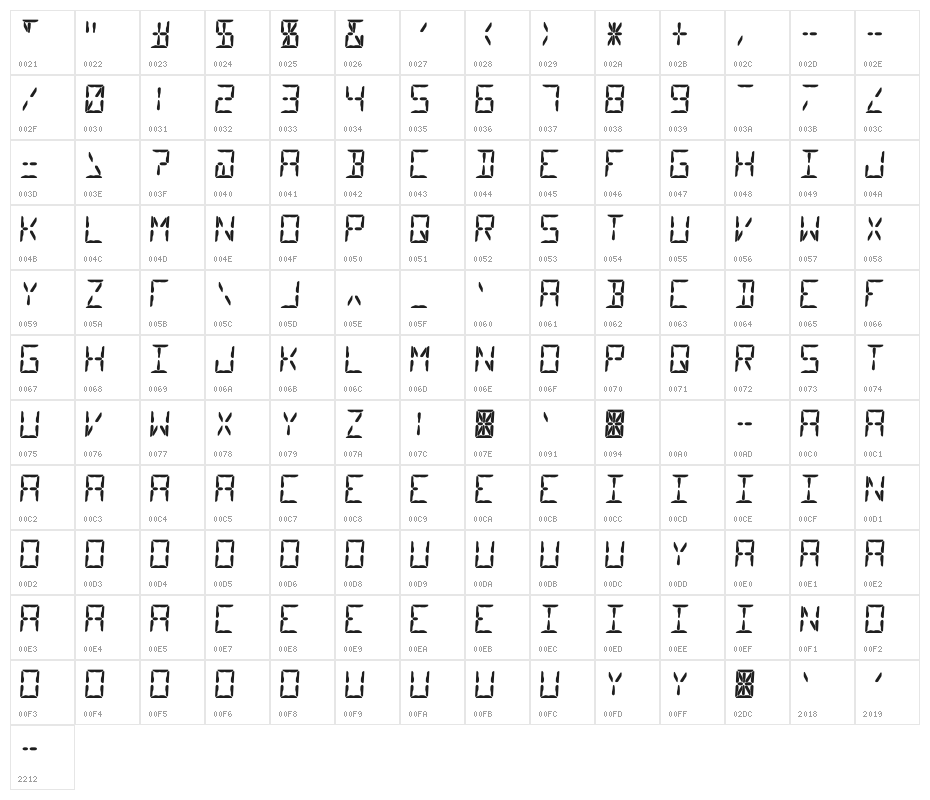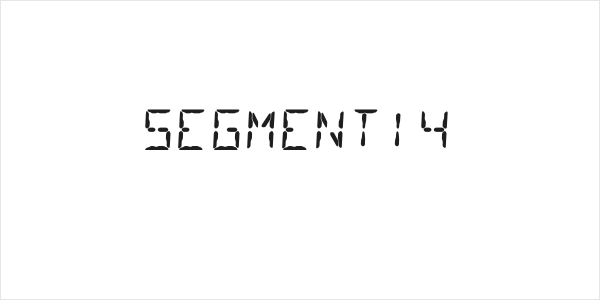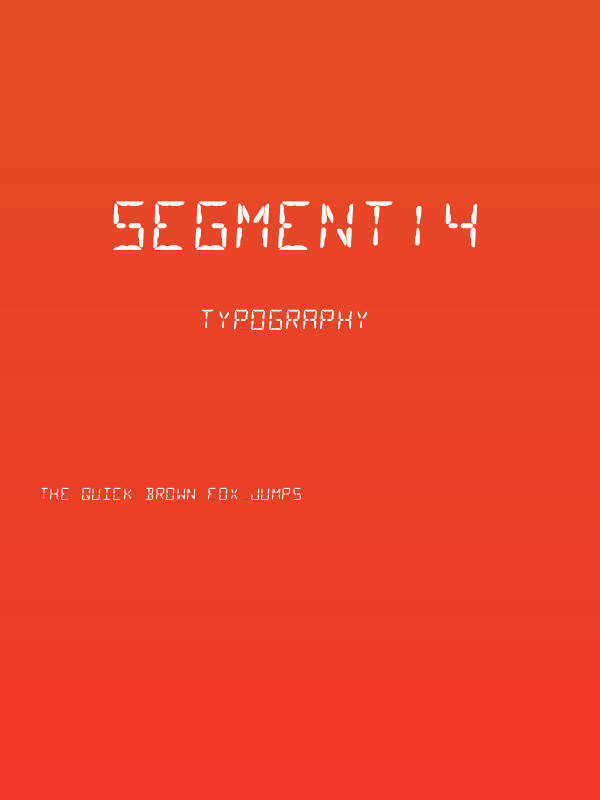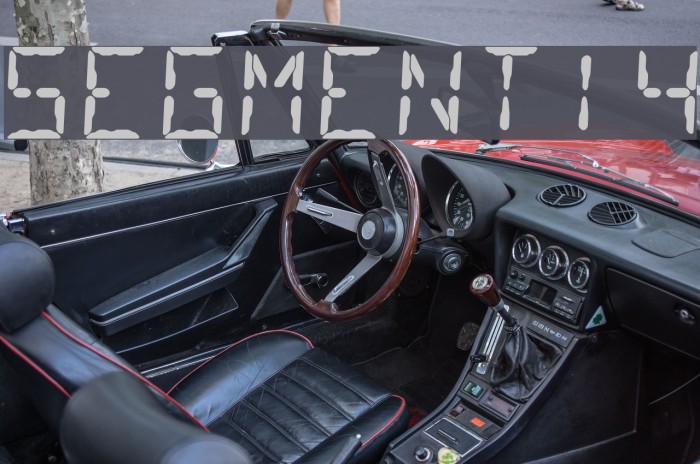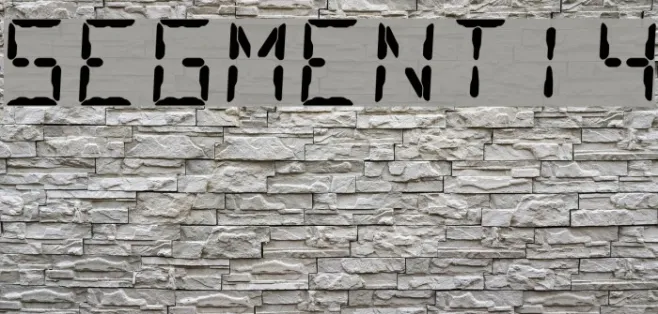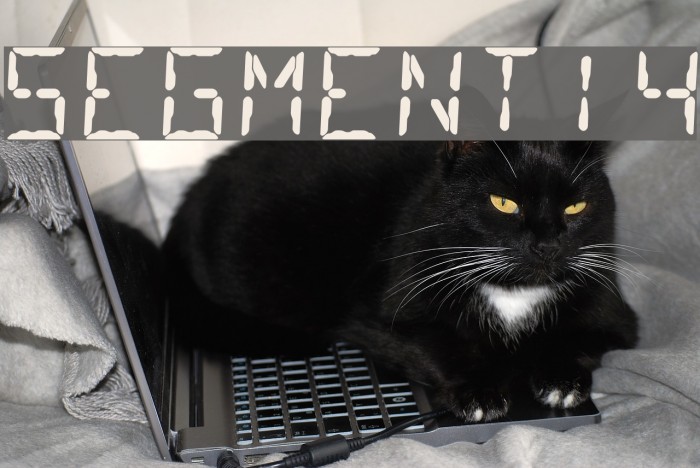
Segment14 Font
Segment14 Description
This font is a digital-inspired typeface that mimics the appearance of seven-segment displays commonly found in digital clocks and calculators. Each character is composed of angular segments, creating a geometric and technical look. The uppercase and lowercase letters, as well as numbers, maintain a consistent style, emphasizing clarity and legibility. The font's design is minimalistic, with a futuristic and technological aesthetic, making it ideal for projects that require a modern and digital feel. The special characters are also crafted to align with the overall segmented theme, ensuring uniformity across all glyphs.
| Use Case | Headlines, Logos, Digital displays |
| Proposed Projects | Ideal for digital-themed projects, tech branding, electronic device interfaces, and retro-futuristic designs. |